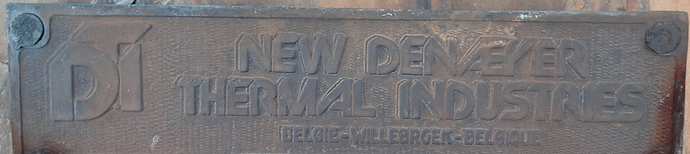
I am searching for the font of this beautiful old nameplate from the netherlands. I have already tried to find it via font search sites, but to no avail.
It is from a Belgium company, but to me it looks hand made.